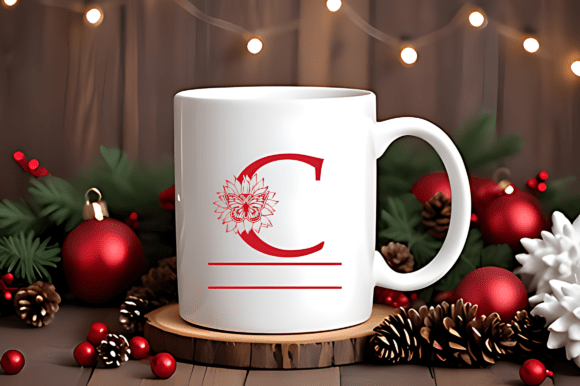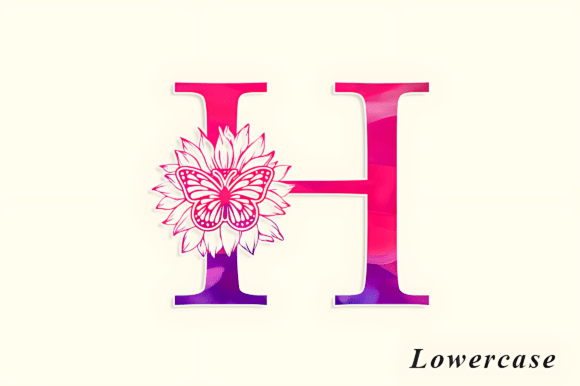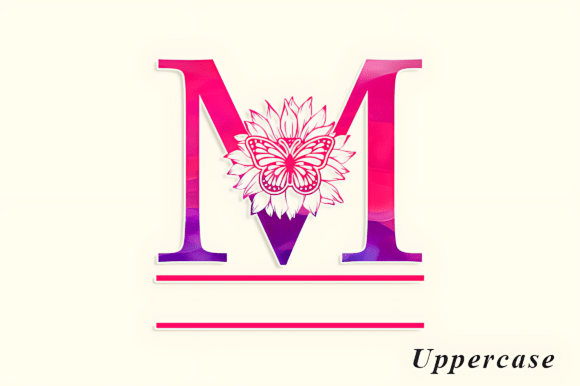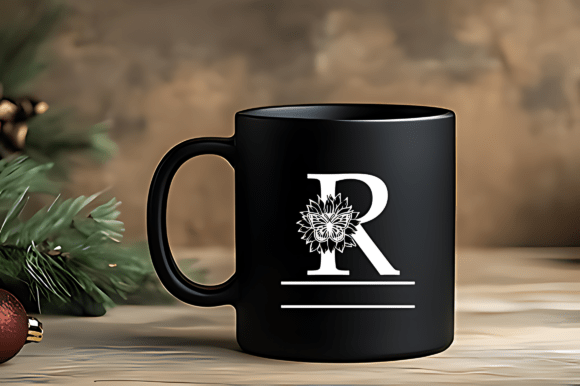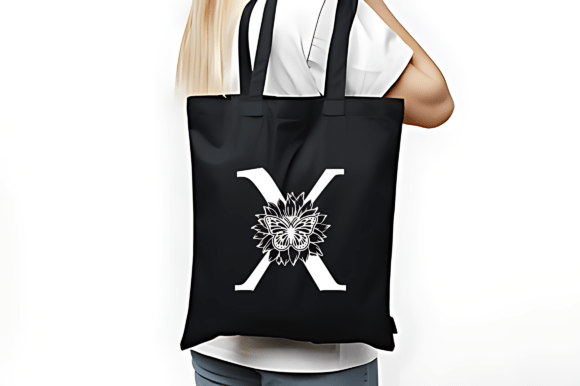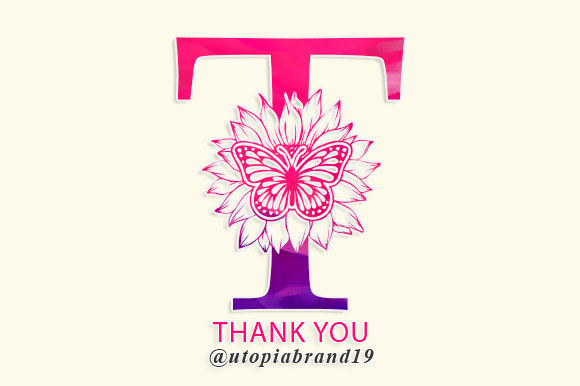
Unleashing Creativity with Blossom Embrace Monogram Font
Have you ever been rummaging through your creative stash, searching for the perfect font to give your design that extra oomph? The excitement is palpable when you stumble upon a hidden gem that makes your heart skip a beat. For designers, the thrill of discovery is what drives us to create something truly special. And that’s exactly what happened when we fell in love with the Blossom Embrace Monogram Font.
This elegant decorative font is a treasure trove of lovely ornaments, waiting to be unleashed on your next design project. Whether you’re crafting a beautiful wedding invitation, creating stunning social media posts, or designing cute greeting cards, the Blossom Embrace Monogram Font is the perfect companion. Its authentic feel is sure to captivate your audience and leave a lasting impression.
Blossom Embrace Monogram Font Key Features
- Font Style: Hand-Drawn Monogram Font, ideal for creating personalized and elegant designs.
- Unique Characteristics: Features intricate details, floral elements, and soft curves, creating a whimsical and romantic atmosphere.
- Character Set: Includes uppercase and lowercase letters, numbers, and special characters, allowing for versatility in design applications.
Blossom Embrace Monogram Font Review
As a designer, I’ve had the chance to work with various fonts, and the Blossom Embrace Monogram Font is one that has caught my attention. Here’s my honest review.
- Unique and elegant design: The font has a beautiful, whimsical feel to it, making it perfect for adding a touch of sophistication to your designs.
- Perfect for monograms and logos: The font is specifically designed for creating monograms and logos, and it excels in this area, providing a clean and modern look.
- Limited character set: The font only includes uppercase letters and a few special characters, which can be limiting for designers who need to create more complex designs.
- Not ideal for body text: The font is best used for headings and titles, as it can be difficult to read in larger blocks of text.
Overall, I think the Blossom Embrace Monogram Font is a beautiful and elegant font that excels in its purpose. While it has some limitations, it’s perfect for designers who need a unique and sophisticated font for their monograms and logos.
The Blossom Embrace Monogram Font is ideal for use in wedding invitations, baby announcements, and other personal designs. It’s also great for use in branding and logo design.